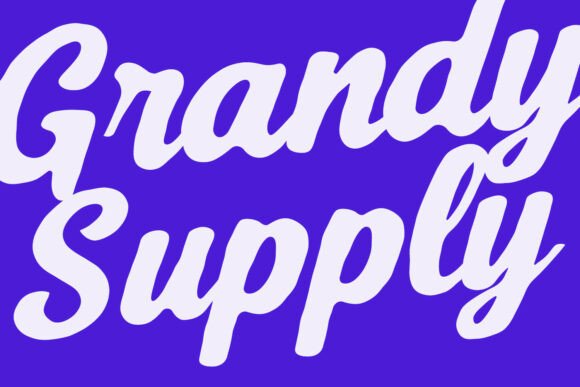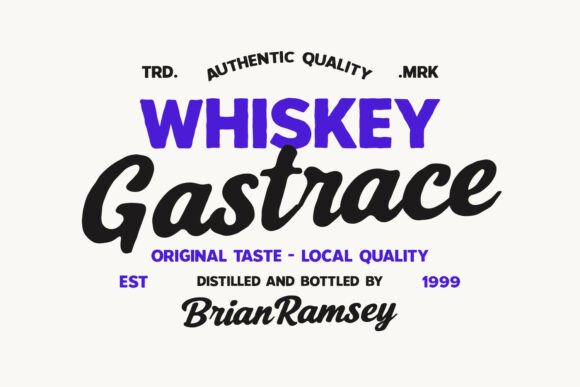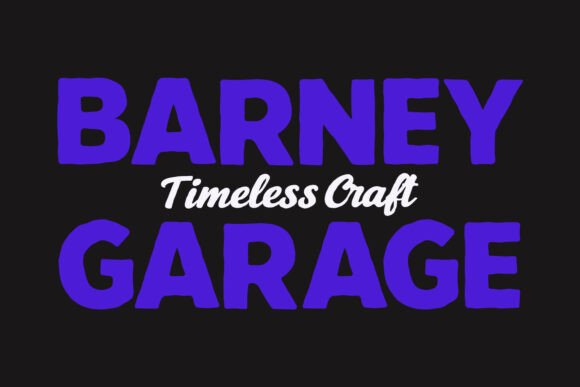
Introduction to Segalecy Font
Have you ever found yourself rummaging through your grandfather’s attic, unearthing a vintage typewriter or an old sign from a bygone era? That’s exactly where the Segalecy Font duo draws its inspiration – from the authentic essence of retro aesthetics and vintage craftsmanship. This pairing of a bold, hand-drawn Sans and a fluid, rhythmic Script is the perfect design resource for any creative project that demands a high-quality finish.
As a designer, you’re always on the lookout for the perfect font to elevate your design to the next level. And with the Segalecy Font, you’ve got a versatile duo that’s sure to impress. Whether you’re working on a whiskey label, brewing company branding, or nostalgic apparel design, this font duo delivers a timeless and authentic look that’s hard to resist. And the best part? It’s available for free download, complete with a transparent background, making it the perfect addition to your design arsenal.
Key Features of Segalecy Font
- High-quality, professional design perfect for creative projects and personal use.
- Features a transparent background, allowing for easy customization and integration with other design elements.
- Designed to be highly legible and versatile, suitable for use in a variety of contexts, from print to digital media.
- Includes a comprehensive character set, covering a wide range of languages and symbols.
- Available in a range of sizes and resolutions, making it easy to use in various design applications.
Honest Review: Segalecy Font
I recently came across the Segalecy Font and I must say, it’s a great addition to any design resource collection. As a designer, I’m always on the lookout for high-quality fonts that can elevate a creative project.
Here are some things that work well with the Segalecy Font:
- ✨ It has a transparent background, making it easy to customize and combine with other design elements.
- ✨ The font is well-designed, with a clear and readable typography that’s perfect for headings and body text.
- ⚠️ The font is not as versatile as some other fonts on the market, making it less suitable for complex designs.
- ⚠️ The font family is relatively small, with only a few weights and styles available.
Overall, the Segalecy Font is a solid choice for designers who need a high-quality font for their creative project. While it may not be the most versatile option, it’s a great addition to any design resource collection and can be used to create beautiful and effective designs.
How to Use Segalecy Font
The Segalecy Font is ideal for a variety of applications, including:
- Branding and marketing materials
- Photography captions and quotes
To get the most out of the Segalecy Font, consider the following tips:
- Use it in combination with a transparent background to create a clean and modern look.
- Experiment with different font sizes and styles to add visual interest.
- Pair it with other design elements, such as images and graphics, to create a cohesive design.